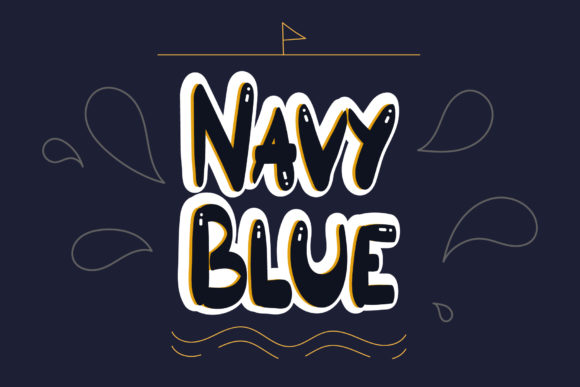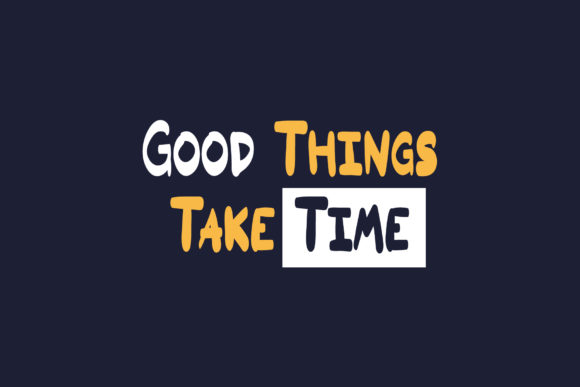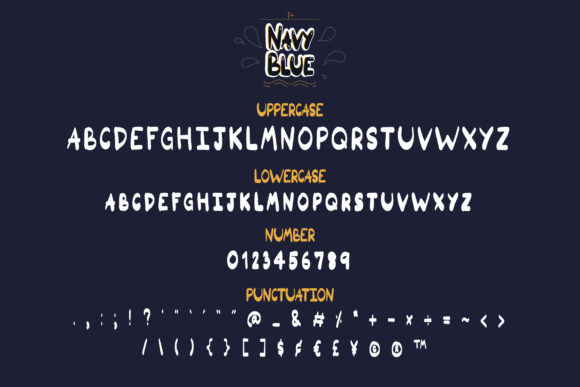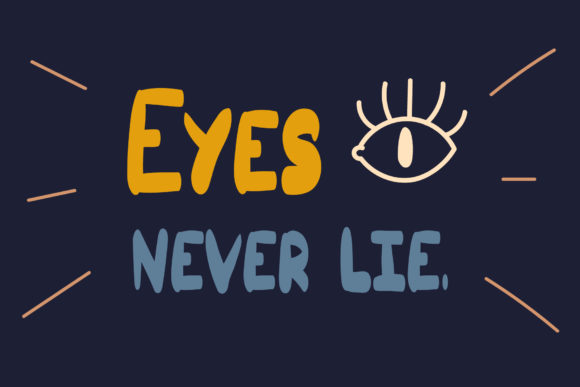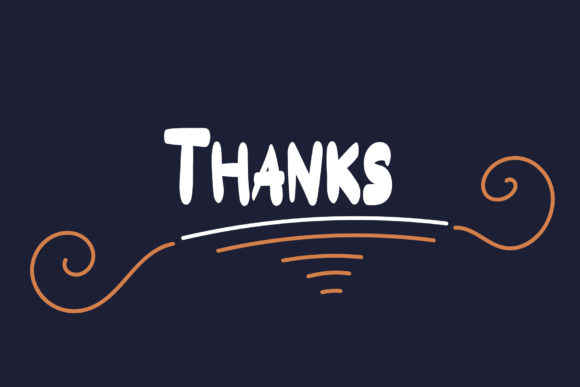
Navy Blue Font
About Navy Blue Font
Navy Blue is a bold handwritten font, carefully handcrafted to become a true favorite. Its casual charm makes it appear wonderfully down-to-earth, readable and, ultimately, incredibly versatile. Navy Blue will look outstanding in any context, whether it’s being used on busy backgrounds or as a standalone headline!